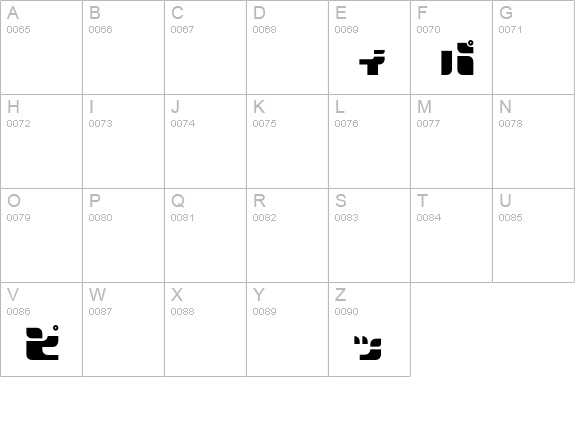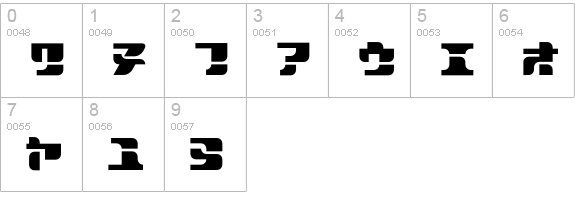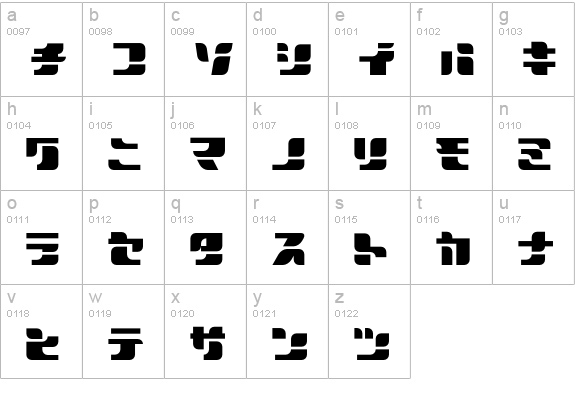
Sportswear-JRegular Font Details
Sportswear-JRegular is a dynamic and eye-catching font that is perfect for all your sportswear branding needs. With its bold and energetic design, this font captures the essence of athleticism and sportiness. The letterforms are sleek and modern, creating a sense of movement and vitality. What sets Sportswear-JRegular apart is that it is available for free to download at FontsMarket.com. This means that you can easily access this amazing font without any cost. It's a fantastic opportunity to elevate your sportswear designs and make them stand out from the crowd. Whether you're designing a logo for a sports team, creating apparel for athletes, or crafting promotional materials for a sports event, Sportswear-JRegular is the perfect choice. Its clean and legible letterforms ensure that your message is communicated effectively, while its sporty aesthetic adds an extra level of excitement and energy. This font is versatile and can be used across various mediums, including print and digital. Its bold and impactful appearance makes it ideal for headlines, titles, and other prominent text elements. It also works well in body text, adding a touch of style and personality to your written content. Sportswear-JRegular is designed with usability in mind, ensuring that it is easy to read even at smaller sizes. This makes it suitable for a wide range of applications, from sportswear labels to social media graphics. Don't miss out on the opportunity to enhance your sportswear designs with Sportswear-JRegular. Download it for free at FontsMarket.com and unleash its power and style in your projects.